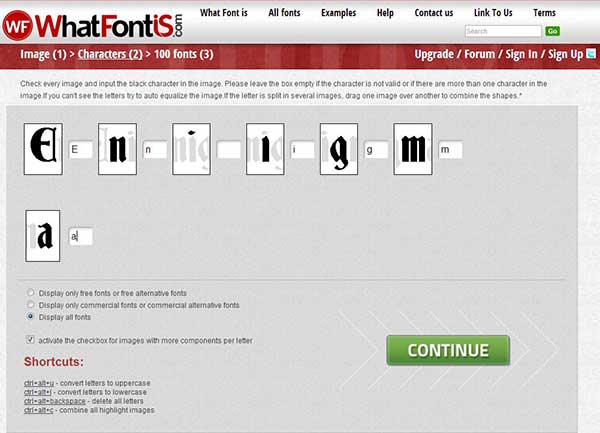
How to find the font you always wanted
On the 9th of May 1941 the Enigma machine, used by Germany to encrypt its secret messages and orders was captured on board a submarine by the British. Arguably this was the beginning of the end for the battle for Britain. Had this piece of machinery not been used with so much success, the resources the English War Machine needed to stay operational and the food and supplies the people needed to stay alive and keep fighting would not have reached the places where they were so direly needed. Also, the video games where we get to shoot Nazis by the gazillion would have never existed.
All the aforementioned games have a couple of things in common, beside the wholesale slaughter of field-gray pixels, among which the incredibly complicated documents that the Germans use in the virtual world and the even more so complicated Gothic fonts that they seemed to love. Check out Return to Castle Wolfenstein for a taste. As a child I was very much impressed by them and thought that just by using such a font, would up the coolness level of school projects by a metric ton. Whether I was or not right cannot be measured now however now I at least have the option to find the exact font that the game programmers used to sway me over.
WhatFontIs makes for an invaluable tool if you’re facing the type of problem I was. Choosing the right font for a project is of the utmost importance and sometimes it just so happens that you see it in use somewhere and don’t have the option to ask somebody what it is. That’s where the below process comes into play and lets you simply find out for yourself. Using a database that covers 280,000 and counting fonts, this website lets you upload a file that has the font you need or just put in a URL to where it can be found. In the Wolfenstein example, it would be a screenshot of one of the documents that fascinated me.
The next step, pictured above, is to confirm the characters that the software managed to recognize. As you can see from my screenshot, I checked the ‘more components per letter’ box because there was an ‘i’ somewhere in there. Hitting the Continue button is the last thing that you have to do, everything else is handled automatically and will produce, on the next page you’re presented with, a list of 100 fonts that match the one submitted.
I particularly like the fact that it always gives you a reminder of what the original was, so that you can compare it against the search results. As you can see, it managed to find two fonts that look exactly the same as my example. From this point forward you just have to download the font and start using it. This type of a tool can save you a lot of time you probably don’t have and can turn out to be a money saver because of the free alternatives it gives. All in all, a great resource to have and to use.You can learn more about this tool here.